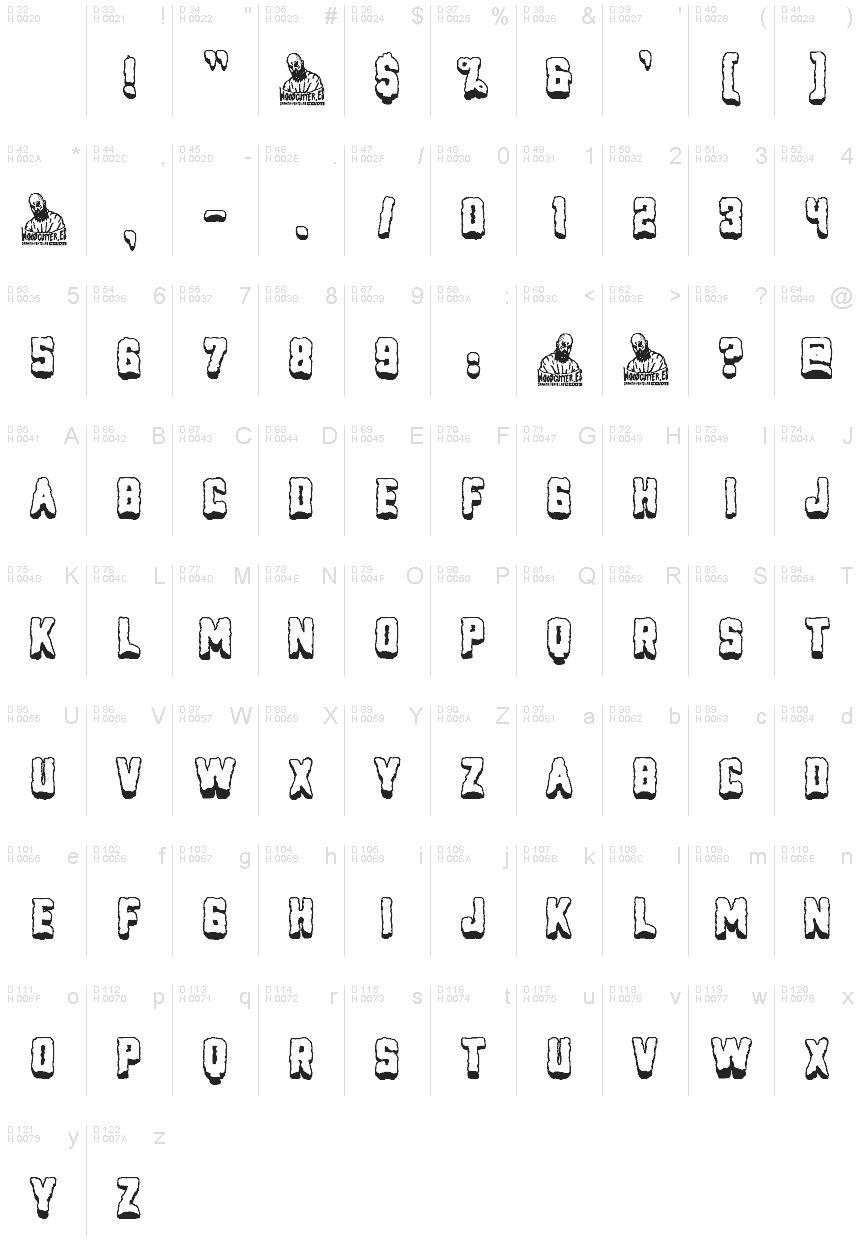
Doctor Heroine
Doctor Heroine font by Woodcutter is a bold, condensed display font with a retro, vintage-inspired design. Its eroded and distressed appearance combined with cartoonish elements encourage the audience to enjoy its playful character. This attention-grabbing free font holds an expressive and captivating spirit for your professional and personal projects.
Create headlines or logotypes, t-shirt designs, comics and magazines covers, postcards with your phone number included, or art that raises awareness within the community. Use it for stickers or signs that label responsibility-free drinks but keep everyone safe either way!